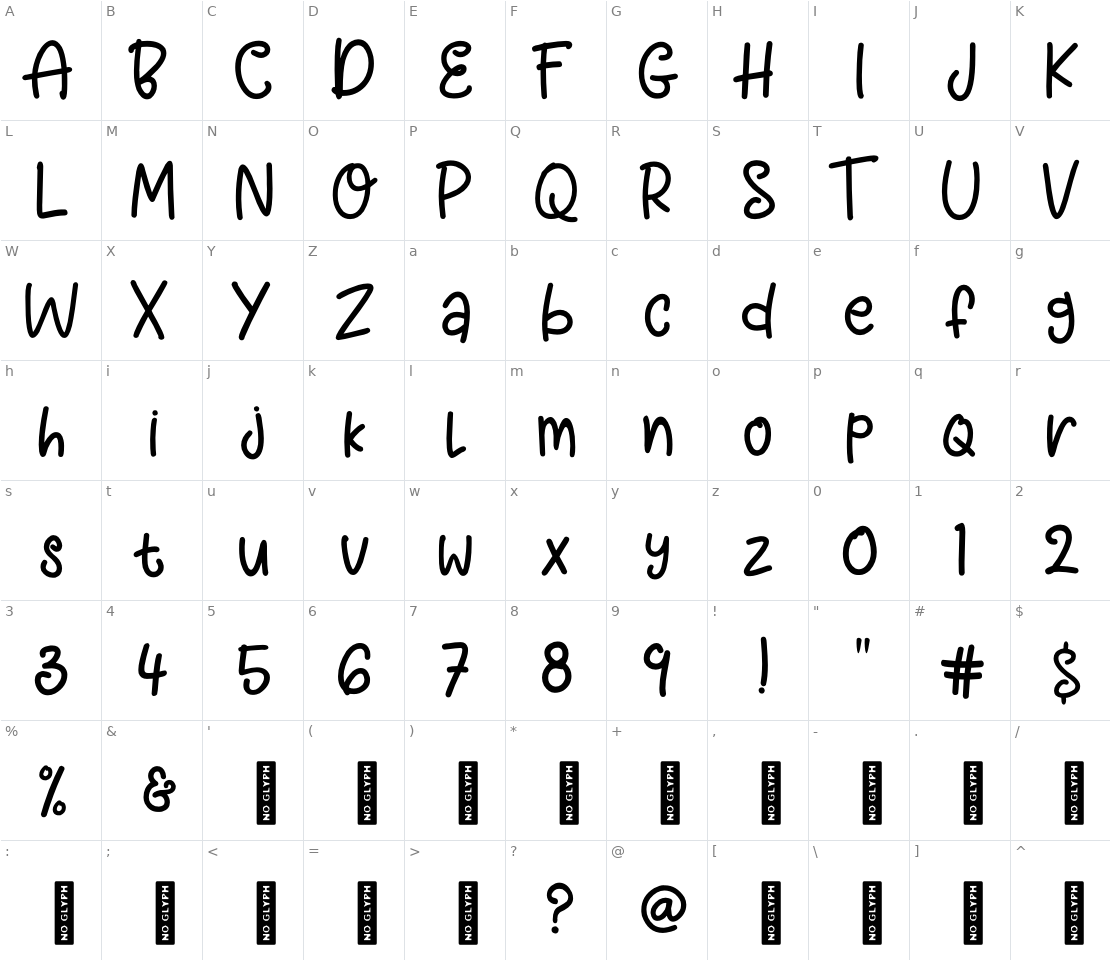
Fortune Cookies
Fortune Cookies is a rounded, casual handwritten face from Outline Studio with a bubbly, comic-strip personality. The letterforms feel loose and friendly, with soft edges and a playful bounce that keeps things lighthearted without looking sloppy. A good pick for headlines, children's content, packaging, or anything that needs to feel approachable and fun.